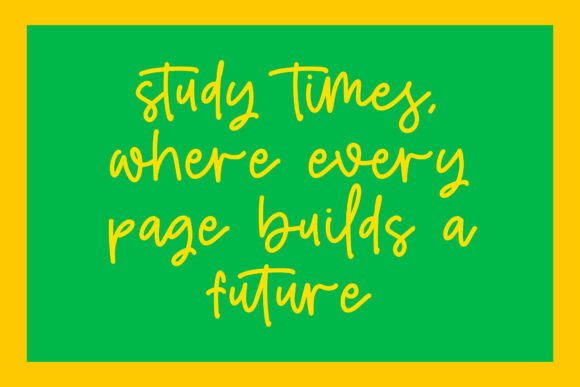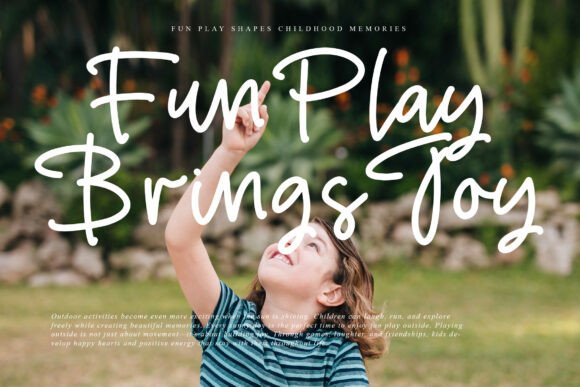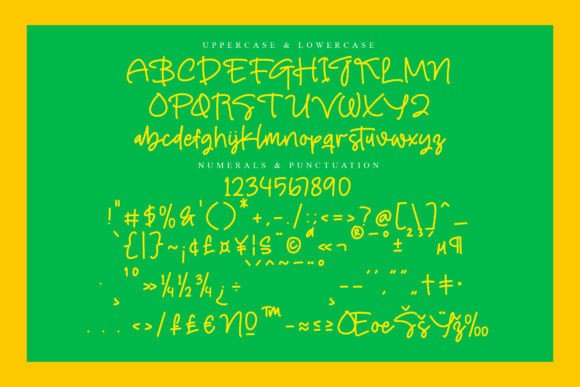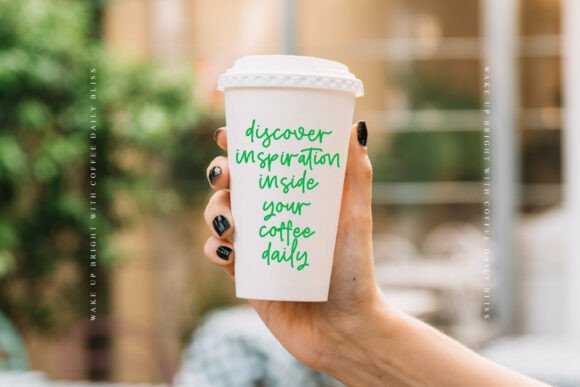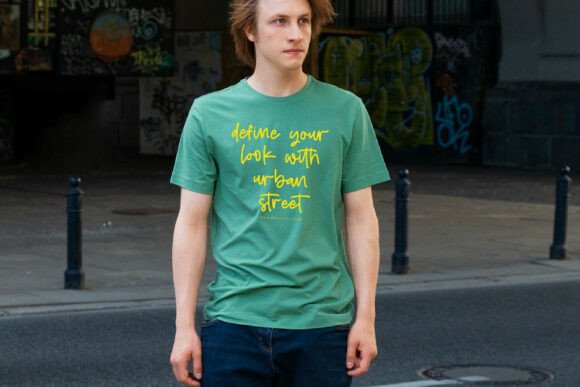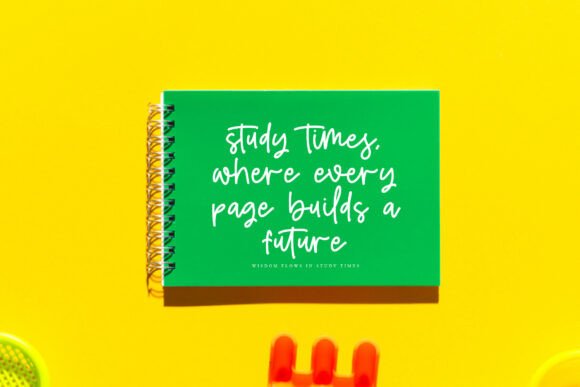
Introduction to Joybright Font
Joybright is a striking script from Operatype, perfect for any project like: logos, branding projects, homewares designs, product packaging, mugs, quotes, posters, shopping bags, t-shirts, covers books, business cards, invitation cards, greeting cards, labels, photography, watermarks, special events and all your other luxury projects that require a premium taste.
Joybright is a striking script from Operatype, perfect for any project like: logos, branding projects, homewares designs, product packaging, mugs, quotes, posters, shopping bags, t-shirts, covers book
Key Features of Joybright Font
Why Choose Joybright Font?
Joybright Font offers exceptional quality and versatility, making it a valuable addition to your design toolkit. Whether you’re creating for personal projects or commercial use, Joybright Font delivers professional results.